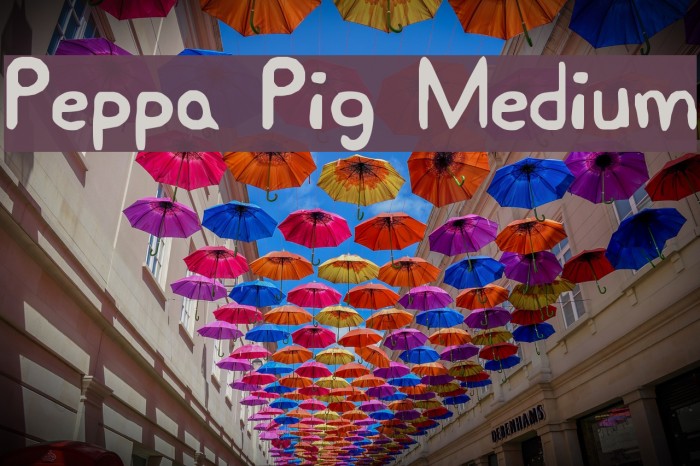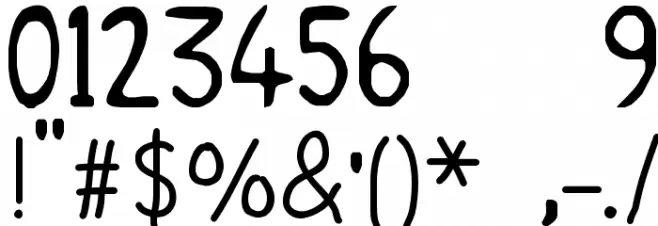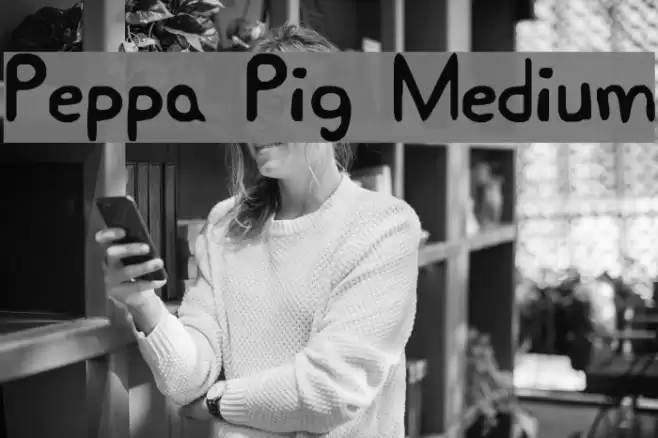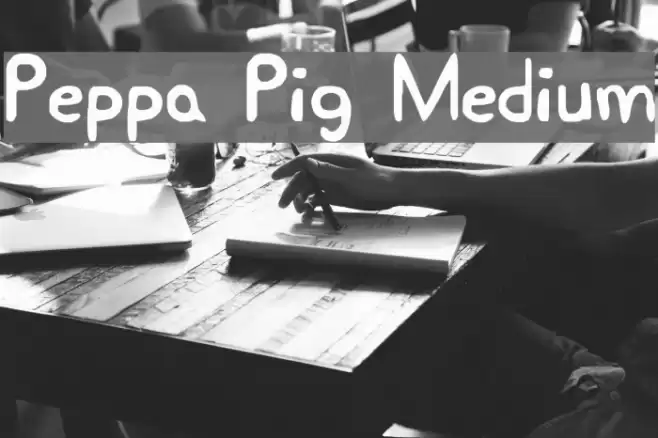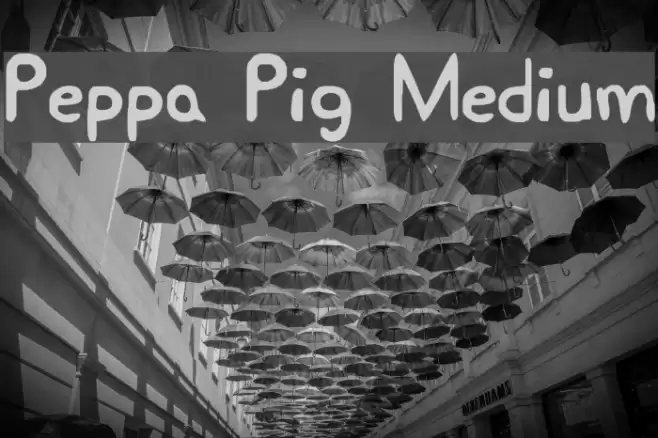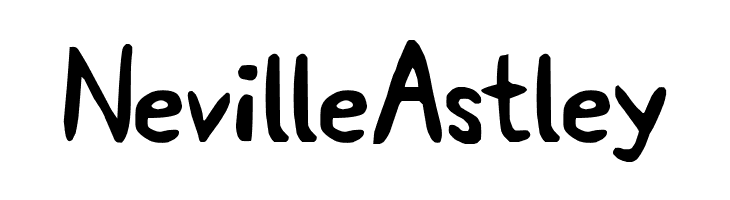
Peppa Pig Medium Font
This playful and whimsical font features rounded, irregular strokes that give it a hand-drawn appearance. The characters are slightly uneven, adding to its charm and making it perfect for children's content or informal designs. The uppercase and lowercase letters maintain a consistent style, with a friendly and approachable look. The numbers and special characters follow the same playful aesthetic, ensuring a cohesive appearance across all text elements. This font is ideal for projects that require a fun and lighthearted touch.
A playful, hand-drawn font with rounded, irregular strokes.
- Proposed Projects: Ideal for children's books, playful branding, greeting cards, and educational materials.
- Overall Style: Playful
- Use Case: Headlines, Logos, Children's content